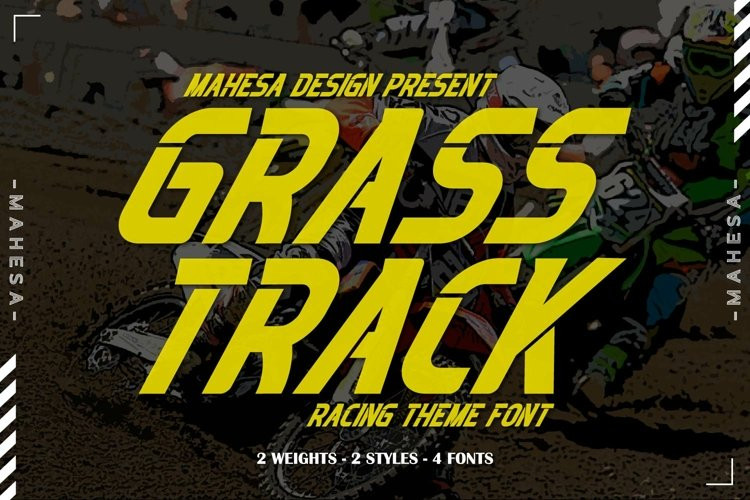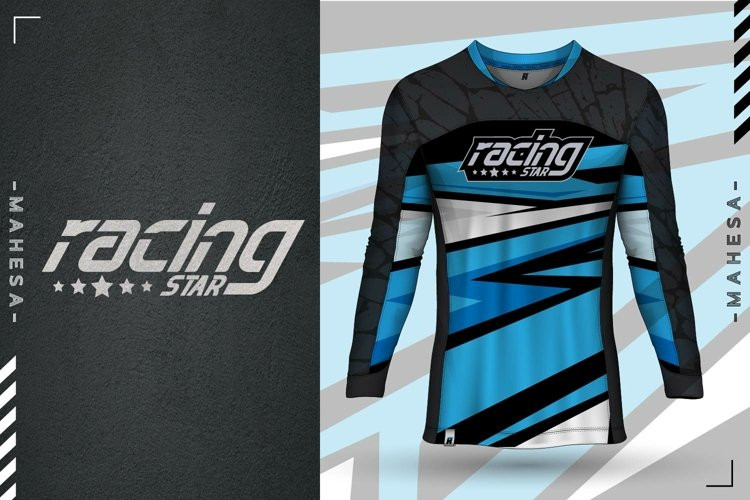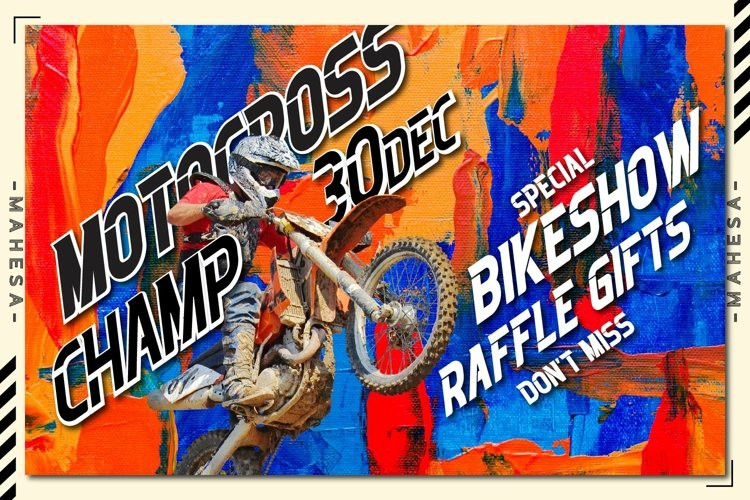
Grasstrack FontGrasstrack unique display font! This font was masterfully designed to bring each of your creative ideas to the highest levels! The racing style makes this font look stronger!!!
Grasstrack Perfect for for many creative products such as t-shirt printing, creative products, or just about anything that could benefit from a strong serif, clean vibe.